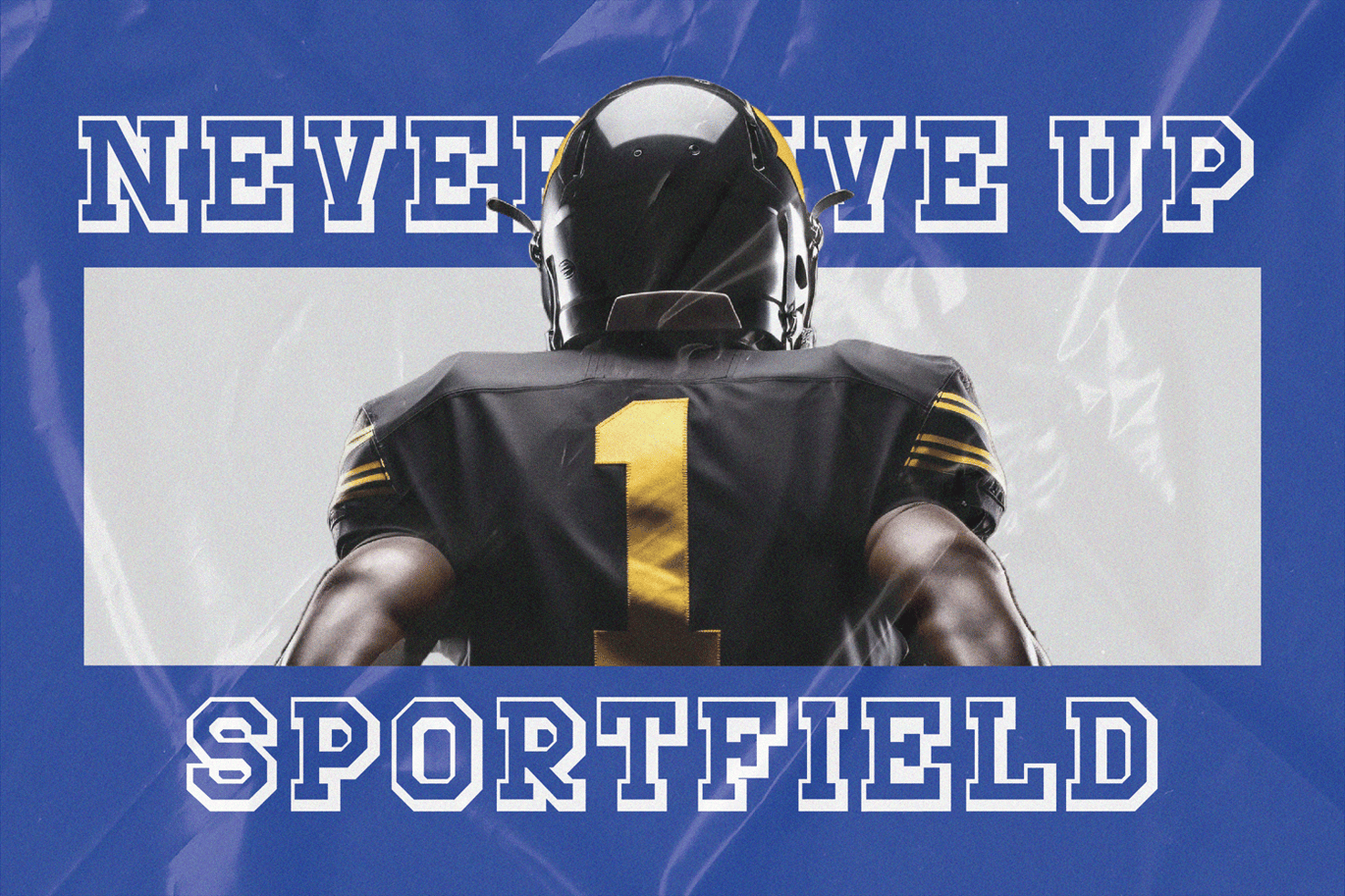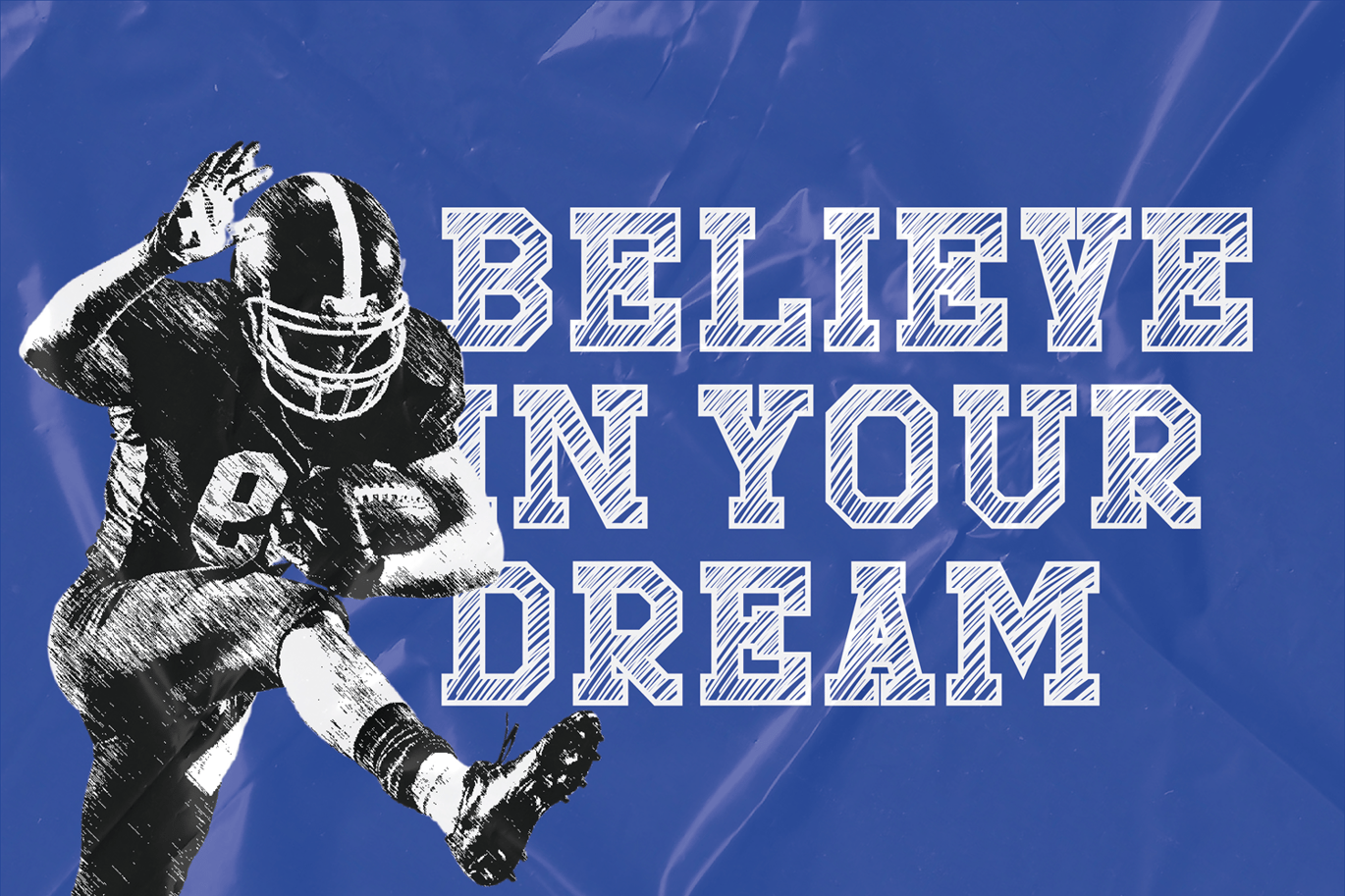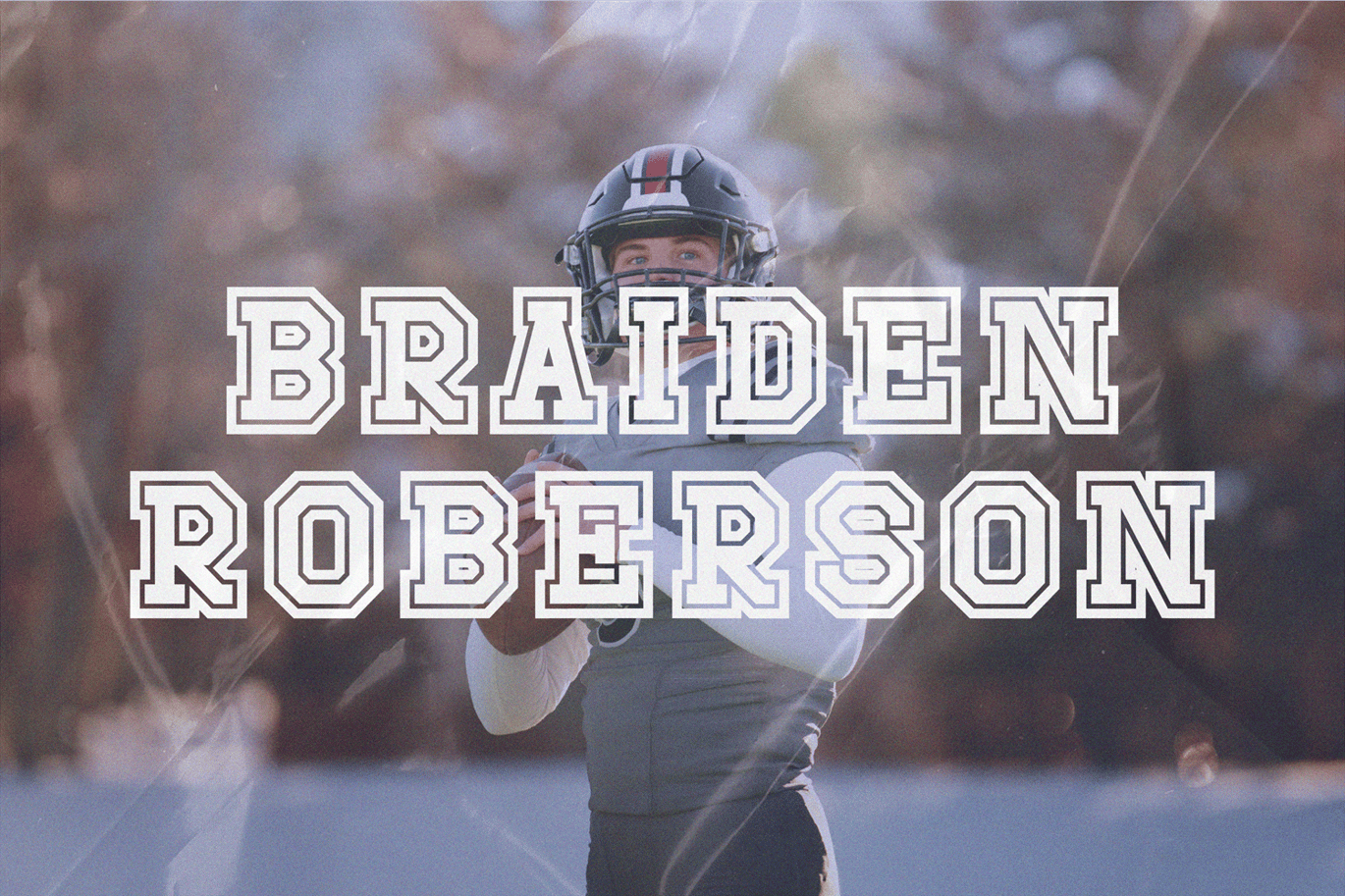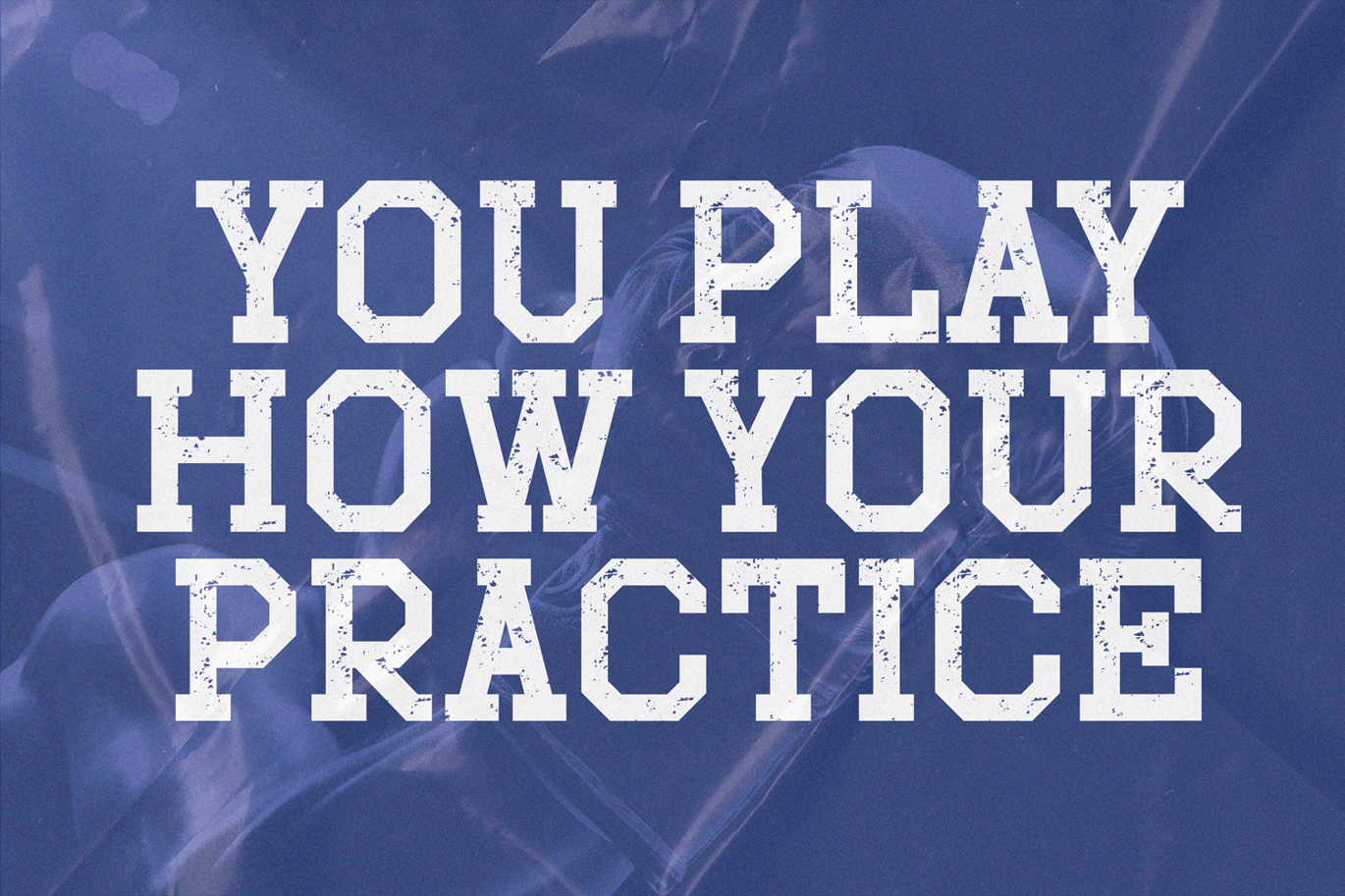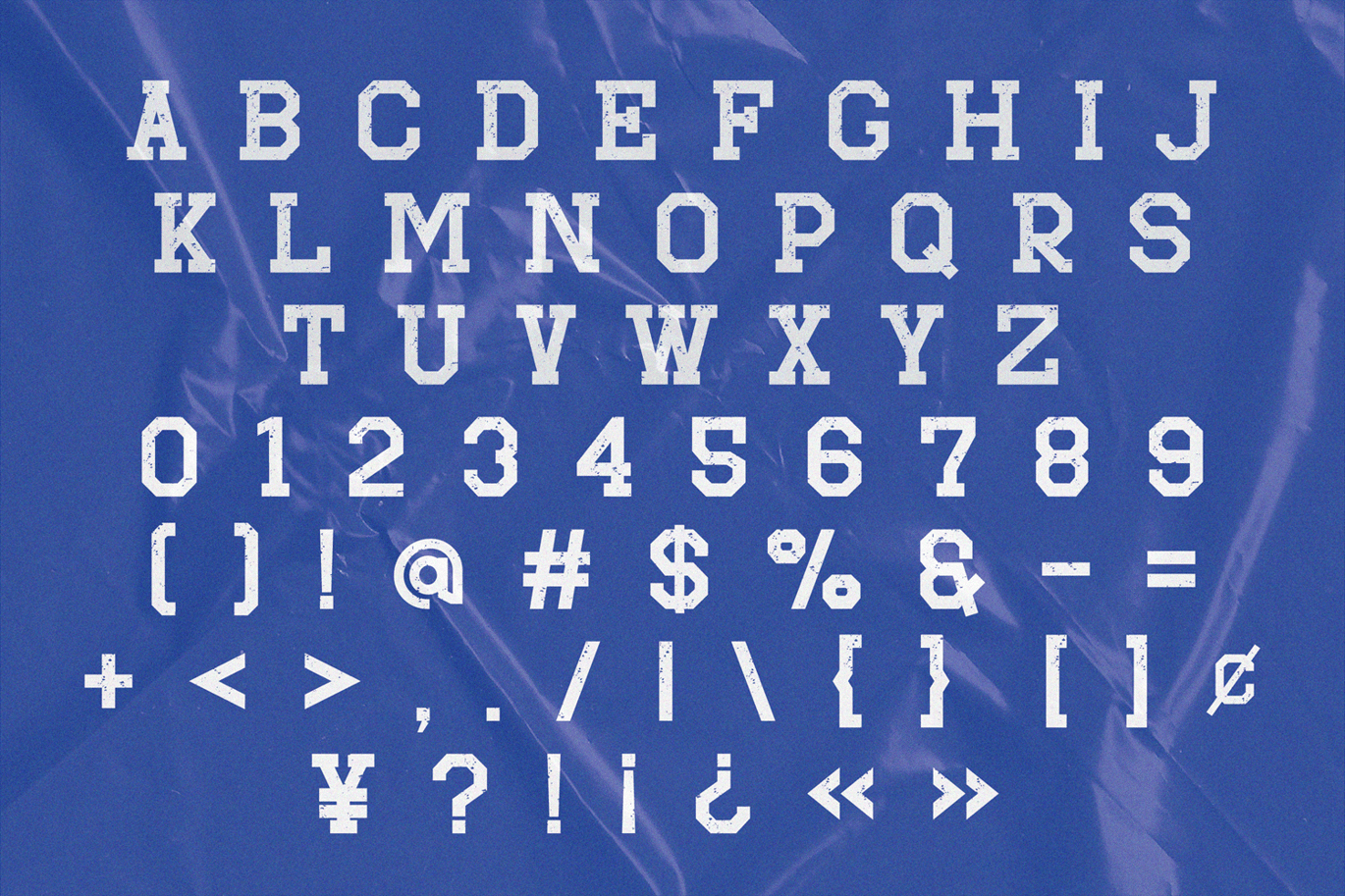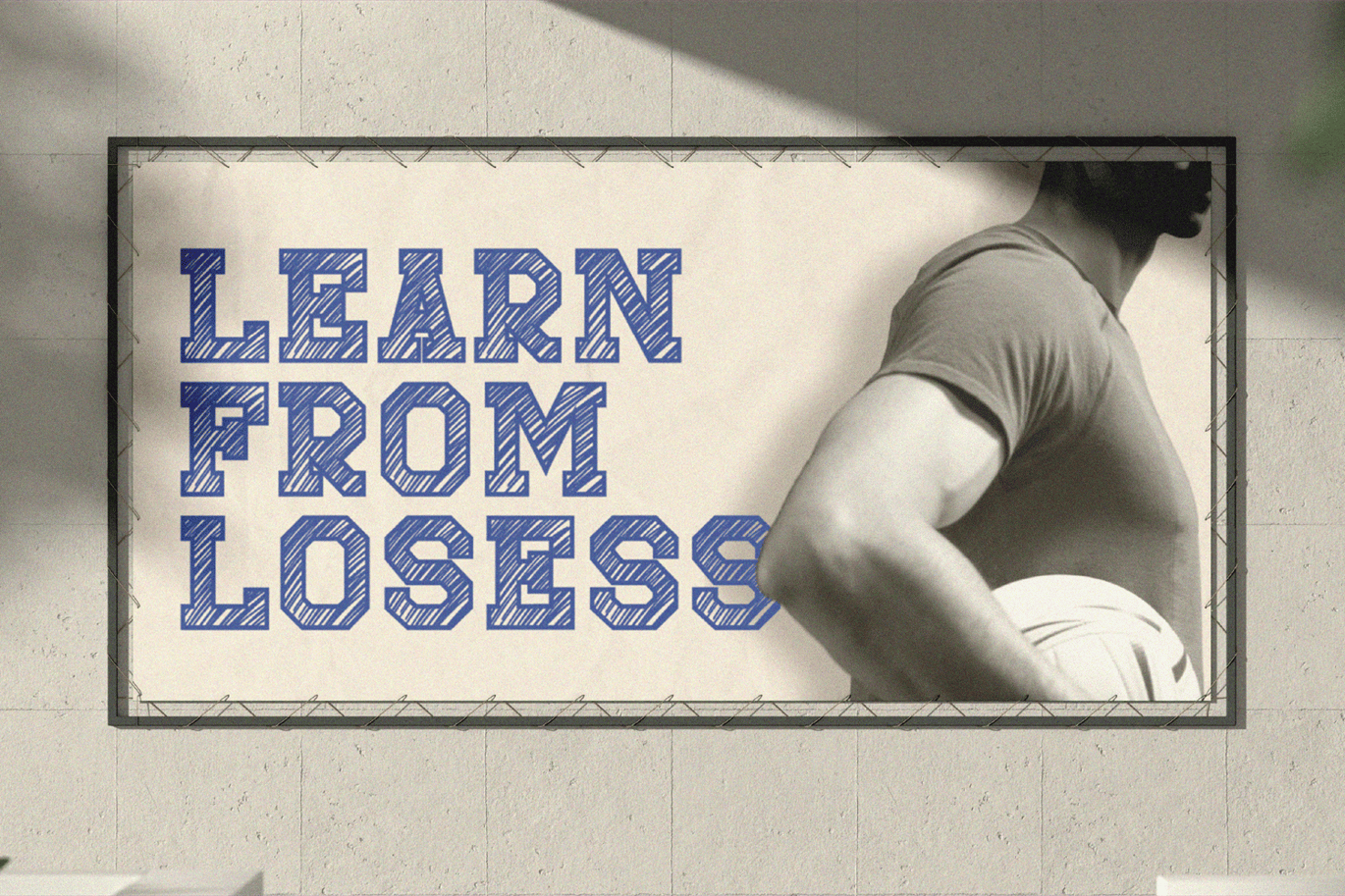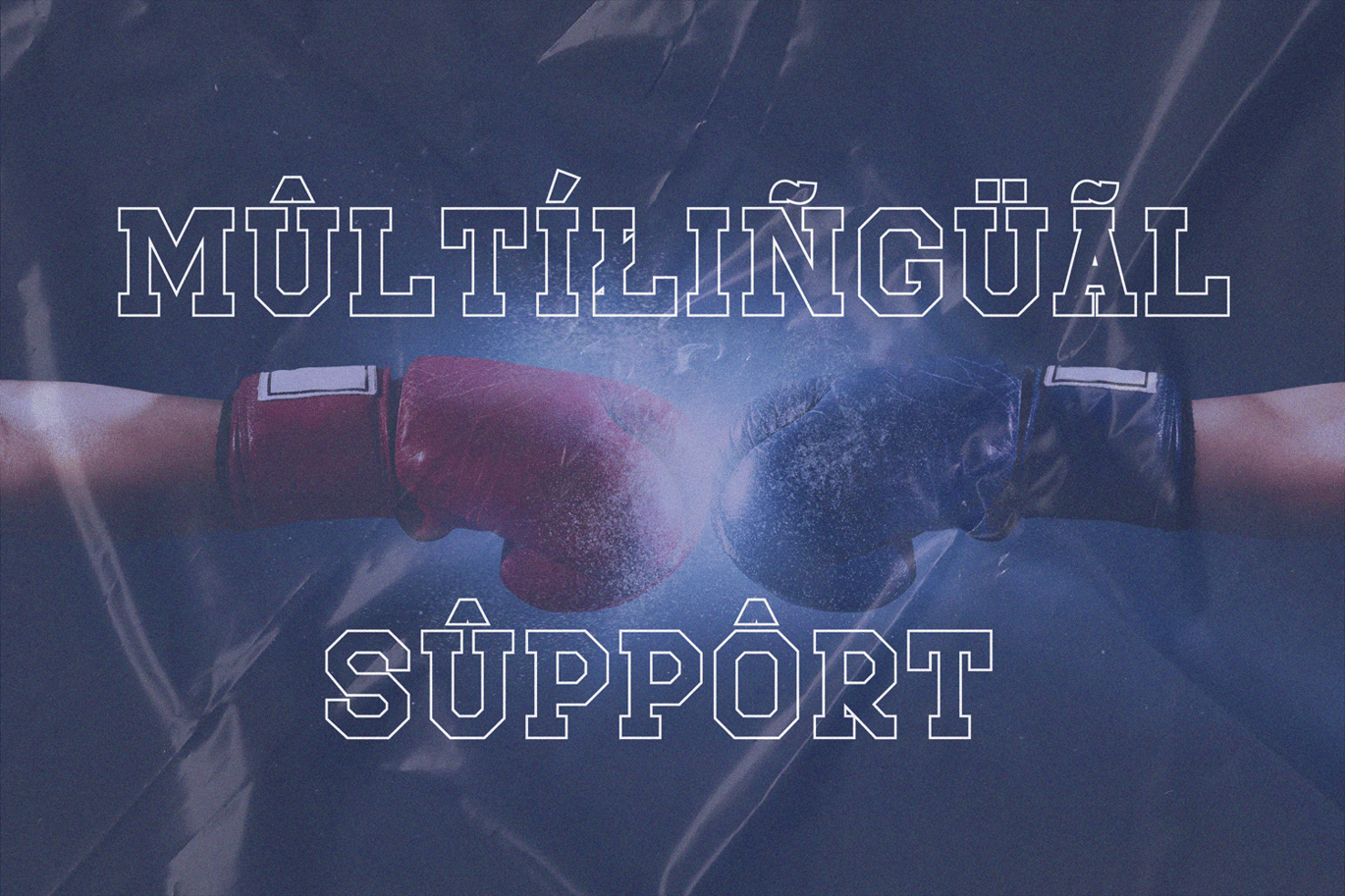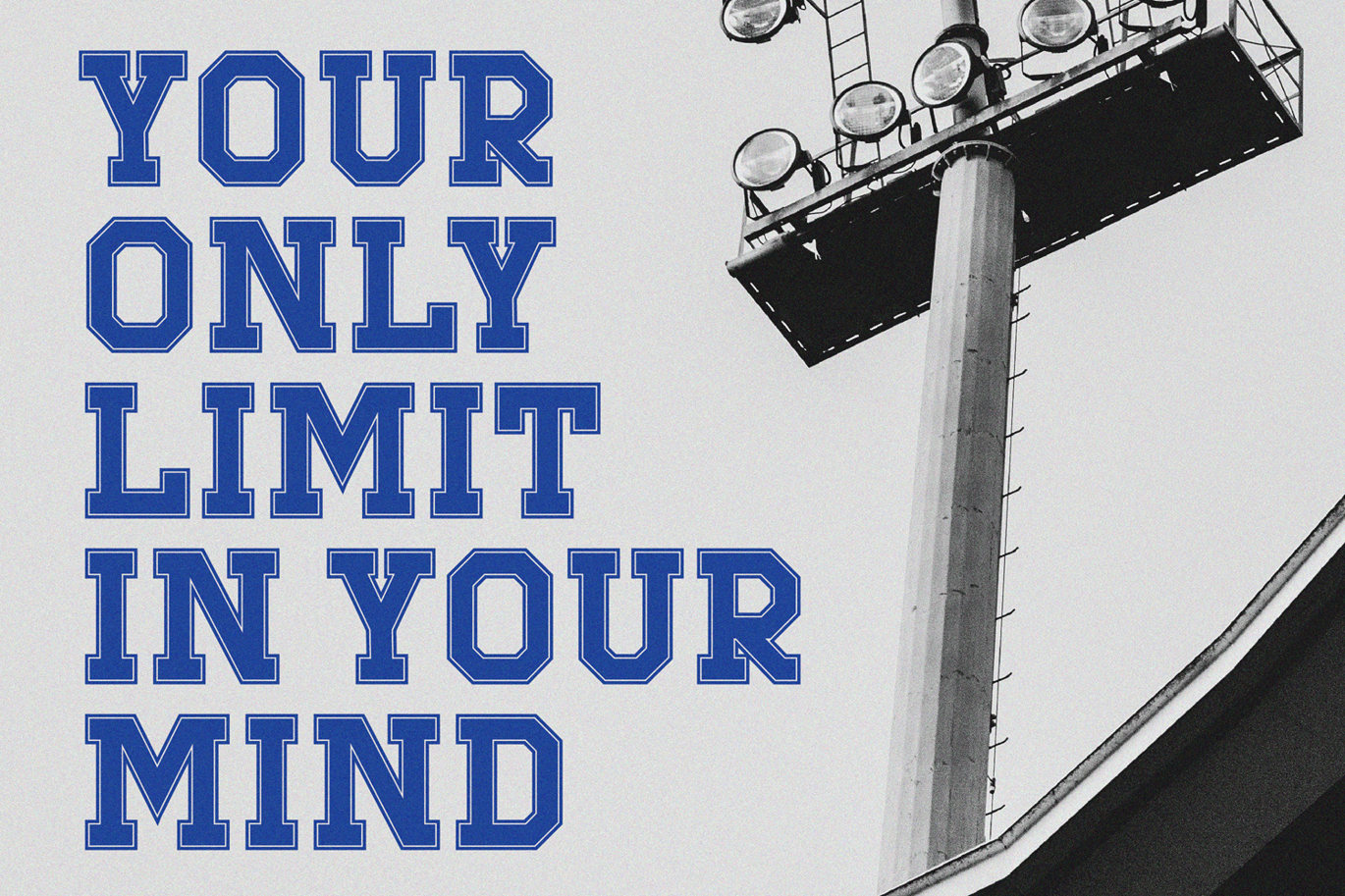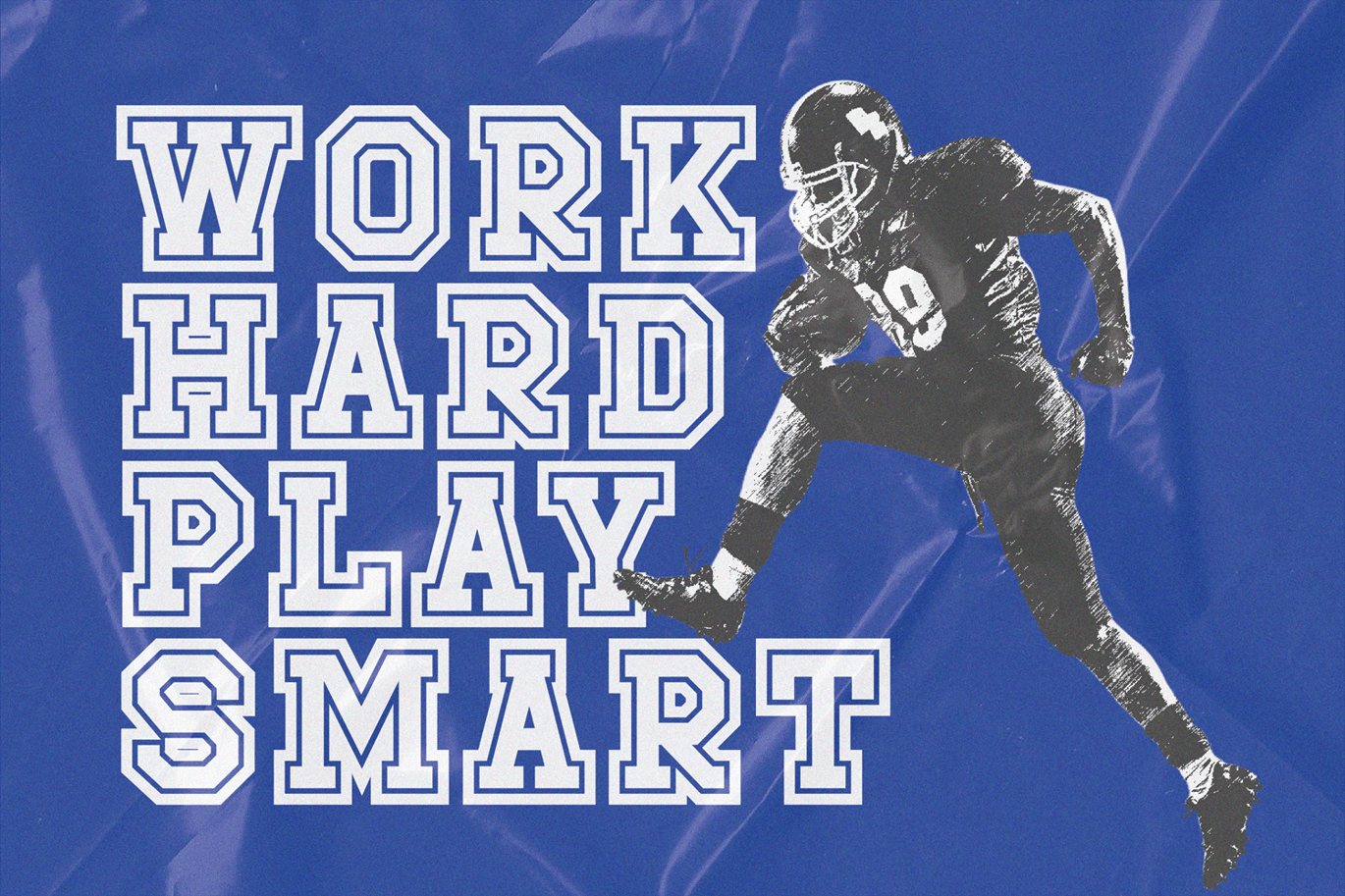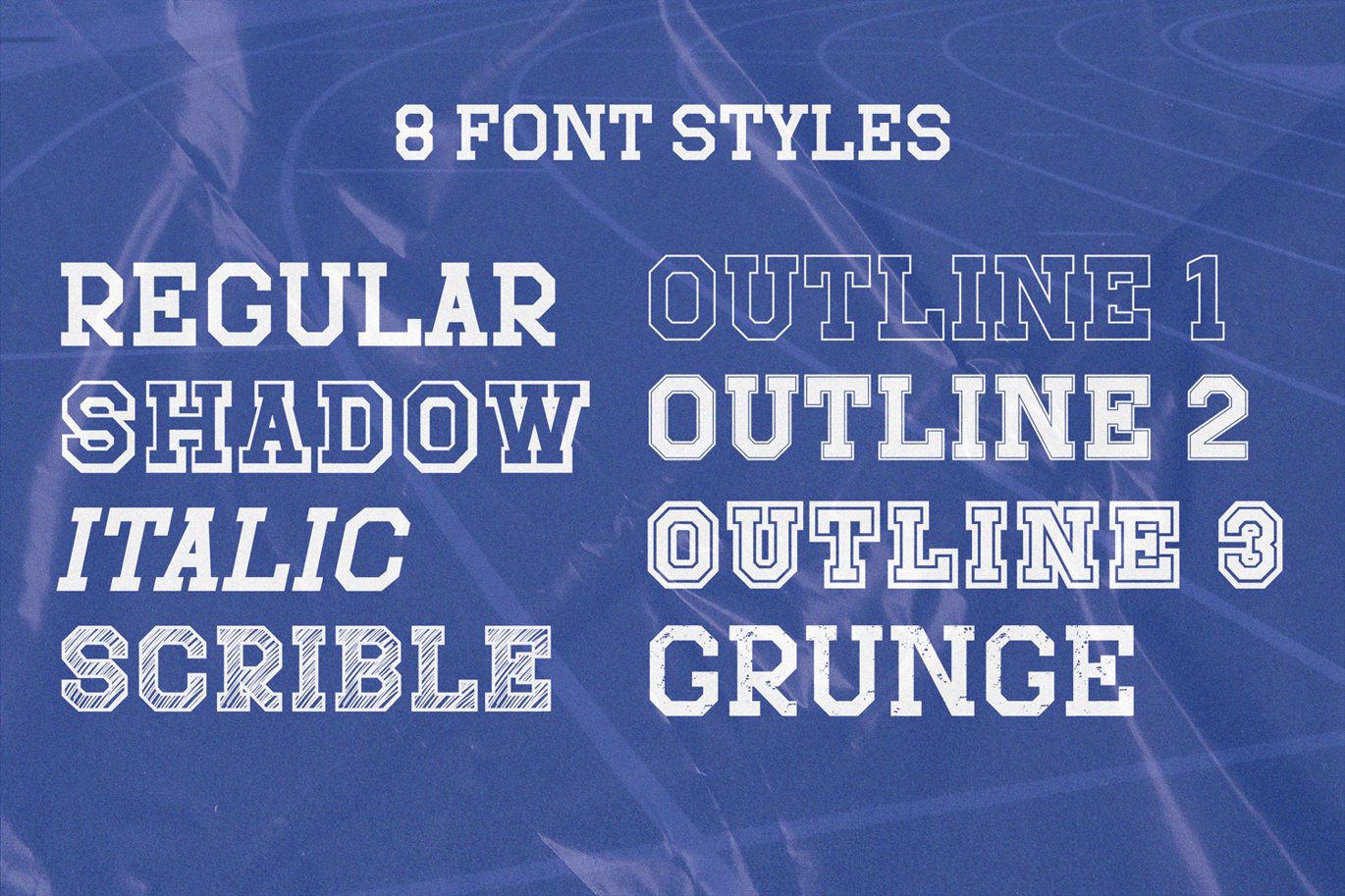
Sportfield Varsity – Athletic Font
Sportfield Varsity is a Sport Font Family. It’s perfect for all your athletic and sports-related designs. With its strong and angular letters, this font conveys a sense of power and motion, making it the ideal choice for logos, headlines, and other graphic elements that need to make a big impact.
- numbers and punctuation
- multilingual